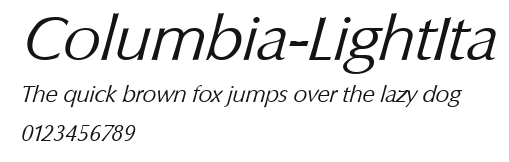
Columbia-LightIta.ttf is a modern, elegant sans-serif font designed for ultimate readability and visual harmony. Perfect for branding, headlines, web design, and print materials.